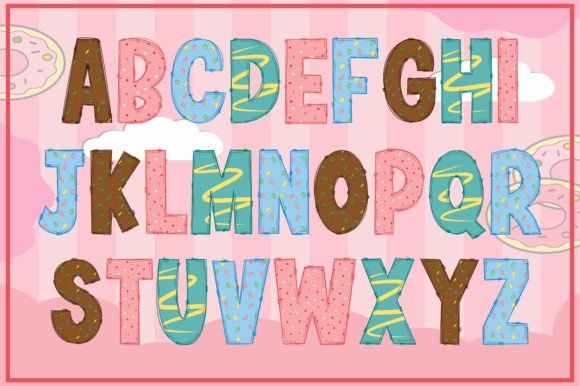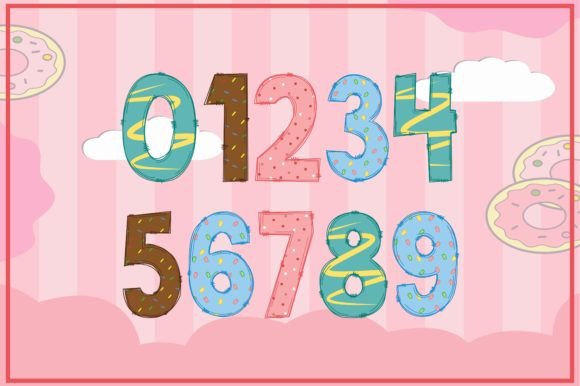
Introduction to Donut Font
Have you ever found yourself stuck in a creative rut, scrolling through design inspiration boards, desperate for that one thing to spark your next big project? I know I have! It’s those moments when you stumble upon something quirky and unexpected that really make your design come alive. For me, it was the Donut Font – a delightful, color-filled font that’s as sweet as its name suggests.
As designers, we’re always on the lookout for unique design resources to elevate our creative projects. That’s where the Donut Font comes in – a high-quality, free download that’s perfect for adding a touch of whimsy to your designs. With its transparent background and vibrant colors, this font is a must-have for any creative project looking to stand out from the crowd.
Key Features of Donut Font
- Unique Donut-inspired design with a transparent background, perfect for creative projects and designs.
- Excellent for use as a design resource in creative projects, such as logos, icons, and graphics.
- Perfect for designers seeking a distinctive and eye-catching font for their next creative project.
Honest Review: Donut Font
I recently had the chance to work with the Donut Font, and I’m excited to share my honest review. This free download has been a great addition to my design resource library.
What works well: ✨ The Donut Font is incredibly versatile and perfect for a creative project that requires a playful touch. The high-quality design and transparent background make it easy to use in various applications.
- ✨ Wide range of characters and symbols, making it suitable for various design projects.
- ✨ Smooth and modern design that adds a touch of elegance to any creative project.
- ✨ Transparent background allows for seamless integration into any design.
Limitations: ⚠️ The Donut Font is a bit limited in terms of font styles, with only a few variations available. Additionally, it’s not suitable for formal or professional projects that require a more serious tone.
Overall, I’m impressed with the Donut Font and would recommend it for creative projects that require a fun and playful touch. It’s a great free download that’s definitely worth checking out.
The Donut Font is a great choice for creative projects, such as social media graphics, blog posts, and presentations. Its transparent background makes it easy to use in designs with complex backgrounds or images. You can also use the font to create custom logos or branding materials.